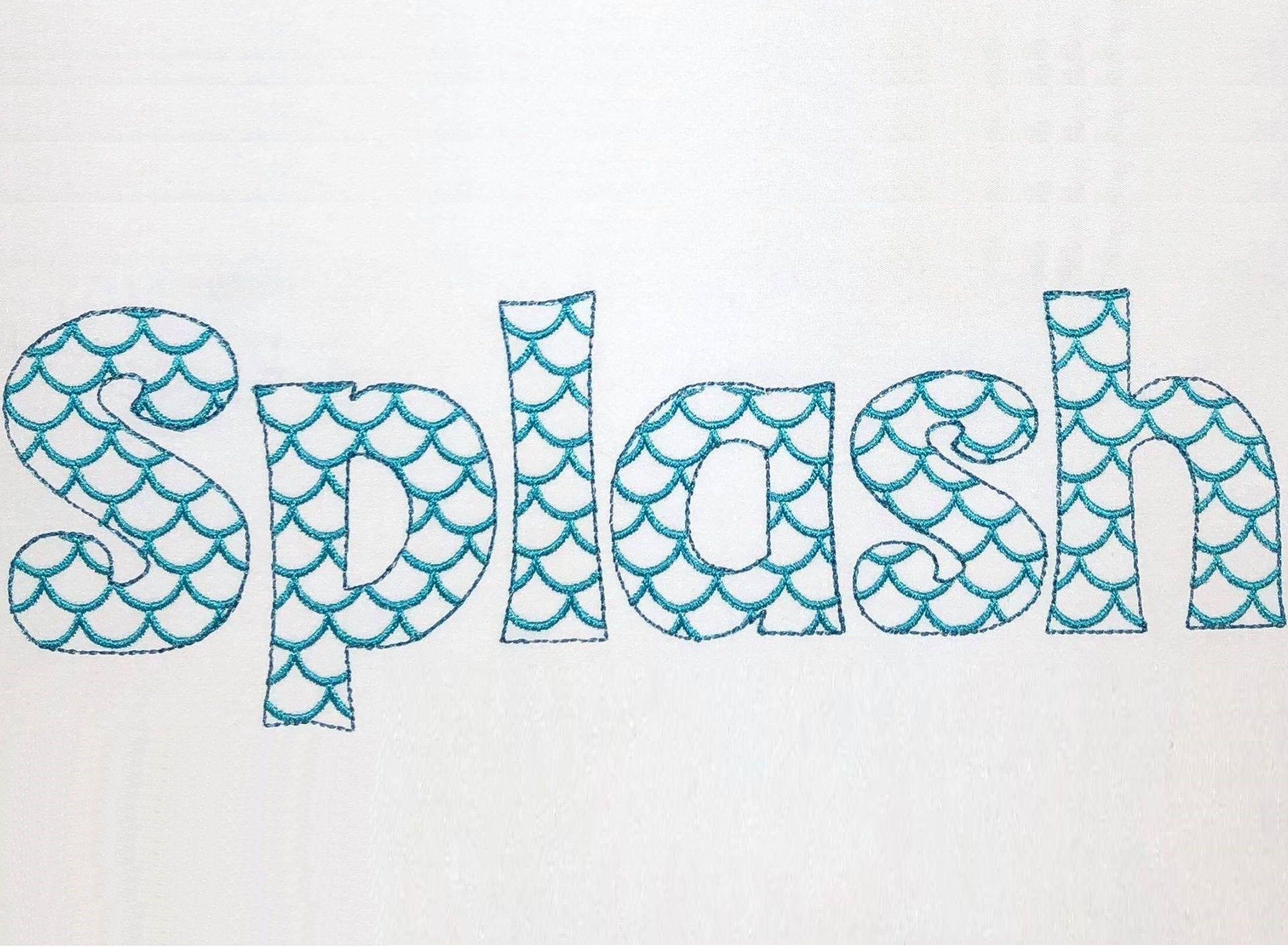
Scalloped Mermaid Monogram FONT alphabet letters assorted sizes Embroidery designs awesome mermaid tail embroidery font machine embroidery
Font is transparent and has satin stitch scallops, with bean stitch outline
Included: lowercase and uppercase letters